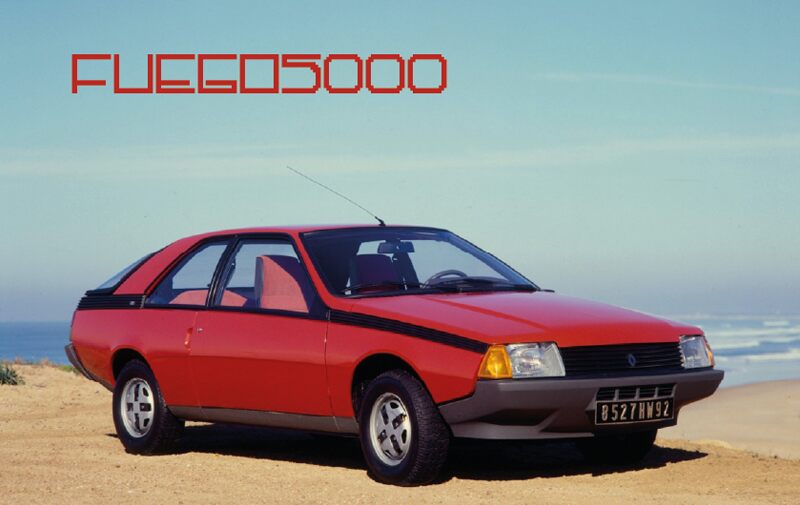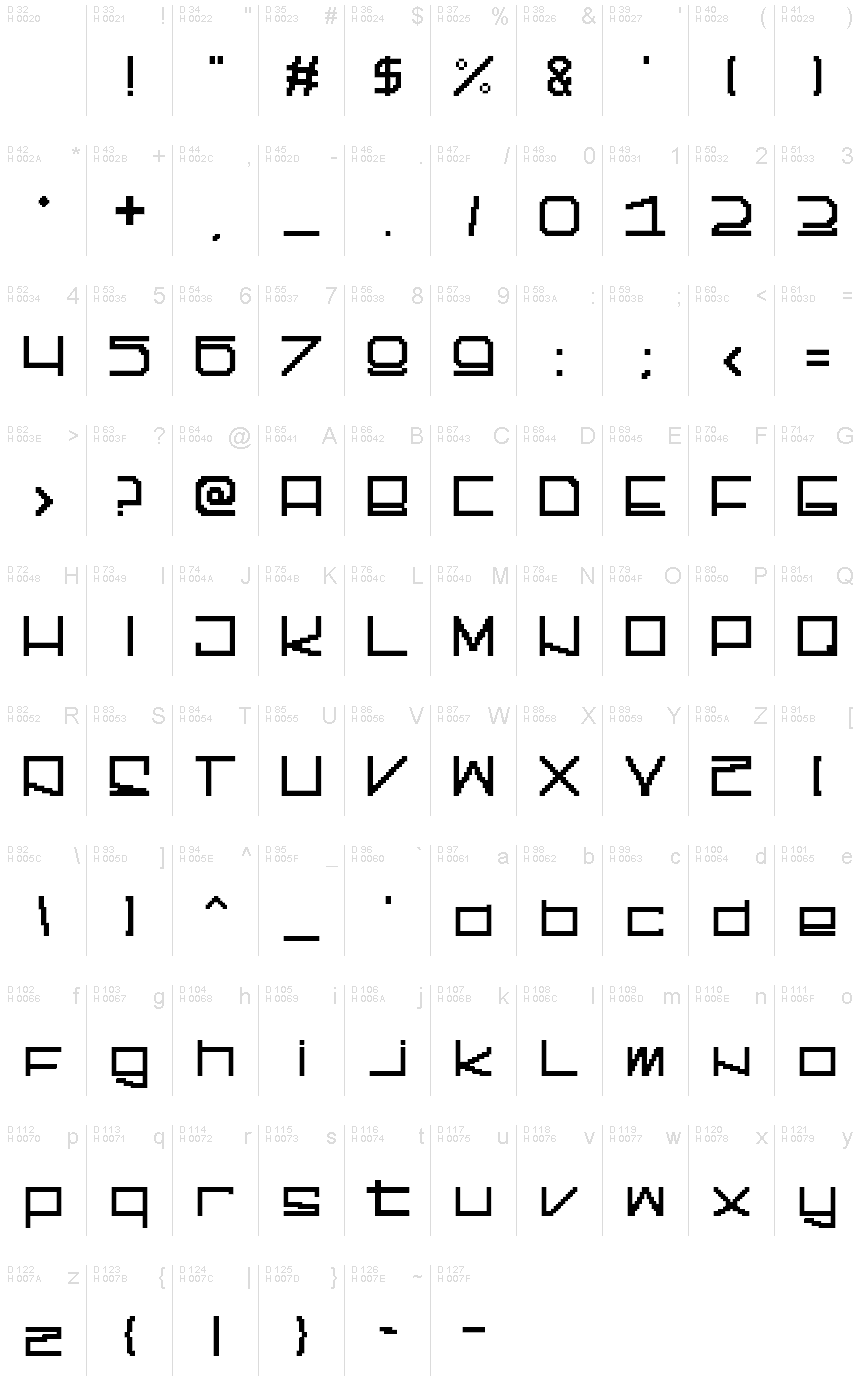
Fuego5000
Fuego5000 display techno font offers a unique mix of retro and futuristic looks. It’s a free font created by George Cheswick who specializes in modern logo and typography.
With its square shape, Fuego5000 would be a perfect addition for your gaming and sci-fi projects as it gives off a feeling of danger and power. It’s also useful for apparel, merchandise items (mug, t-shirt etc.), print designs like posters, business cards, album covers, etc. Its techno style will also complement futuristic and space related projects. It comes in one style so it’s a perfect combination for a branding logo.
A font designed by George Cheswick, specializing in illustration, animation, and graphic design.